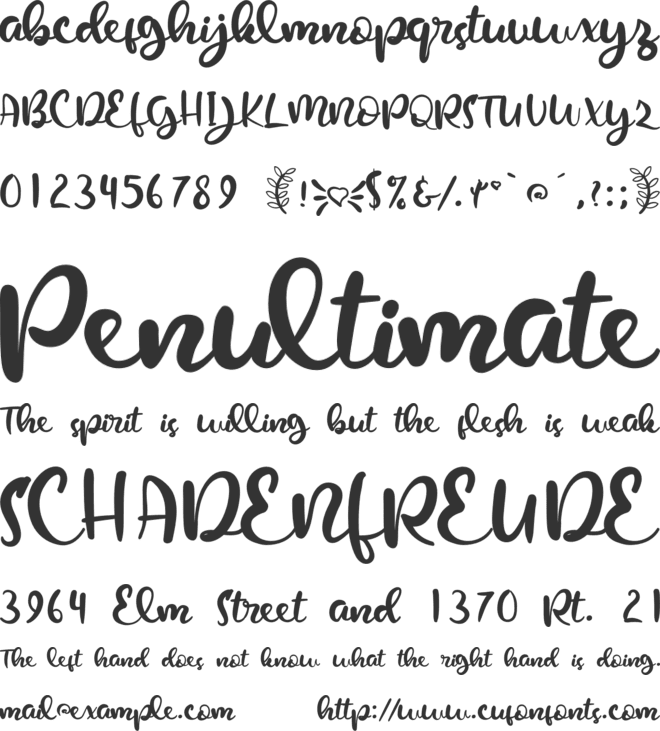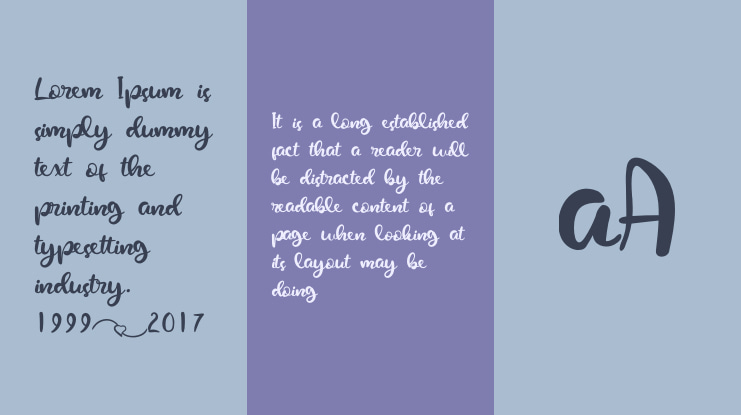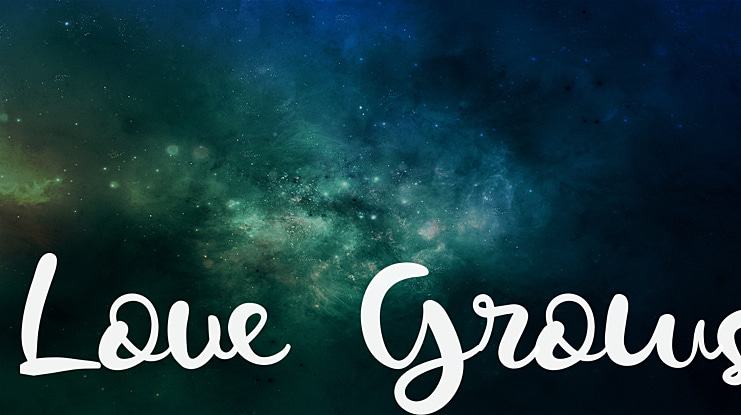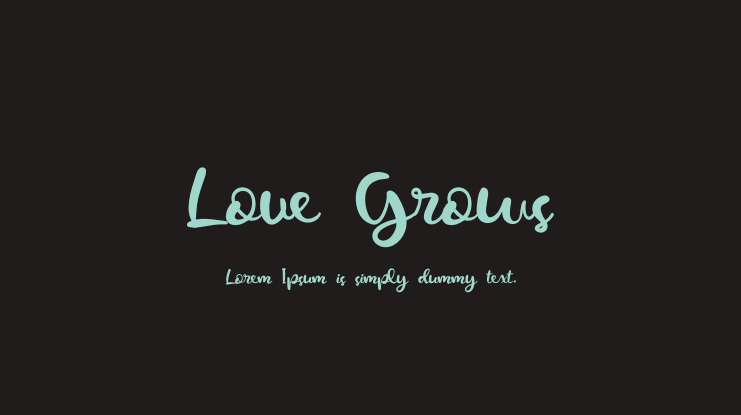
Love Grows Font
Love Grows is a gorgeous and equally charming handwritten font. Use this font for your various design needs, and whatever the theme, it will instantly enhance their beauty.